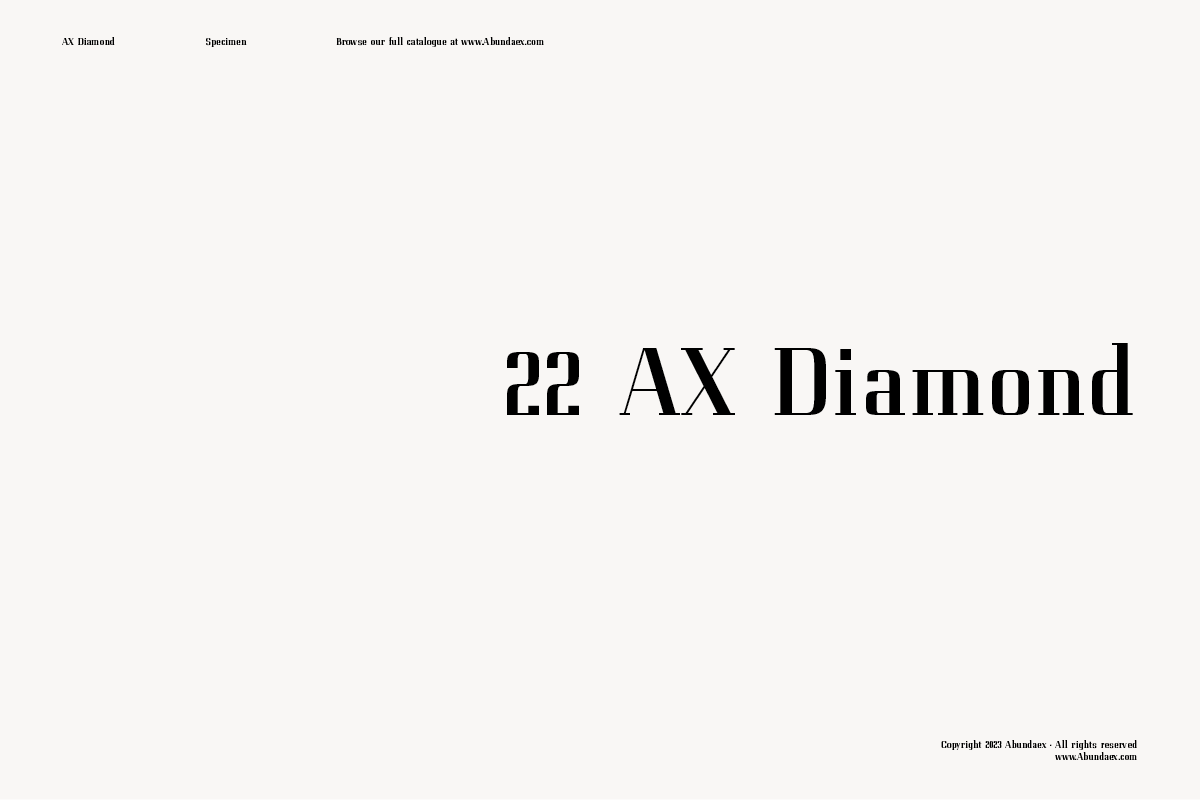
Diamond Stylish Font Free Download is an elegant and refined typeface designed with a modern, luxurious aesthetic. Featuring sharp lines, sleek curves, and a stylish flair, this font is perfect for branding, high-end packaging, fashion logos, invitations, and other projects that require a sophisticated touch.
Its bold, yet elegant design gives your typography a sense of luxury and timeless beauty. Whether you're designing for a fashion brand, a premium product, or any high-class event, Diamond Stylish Font adds an upscale, polished look to your work.